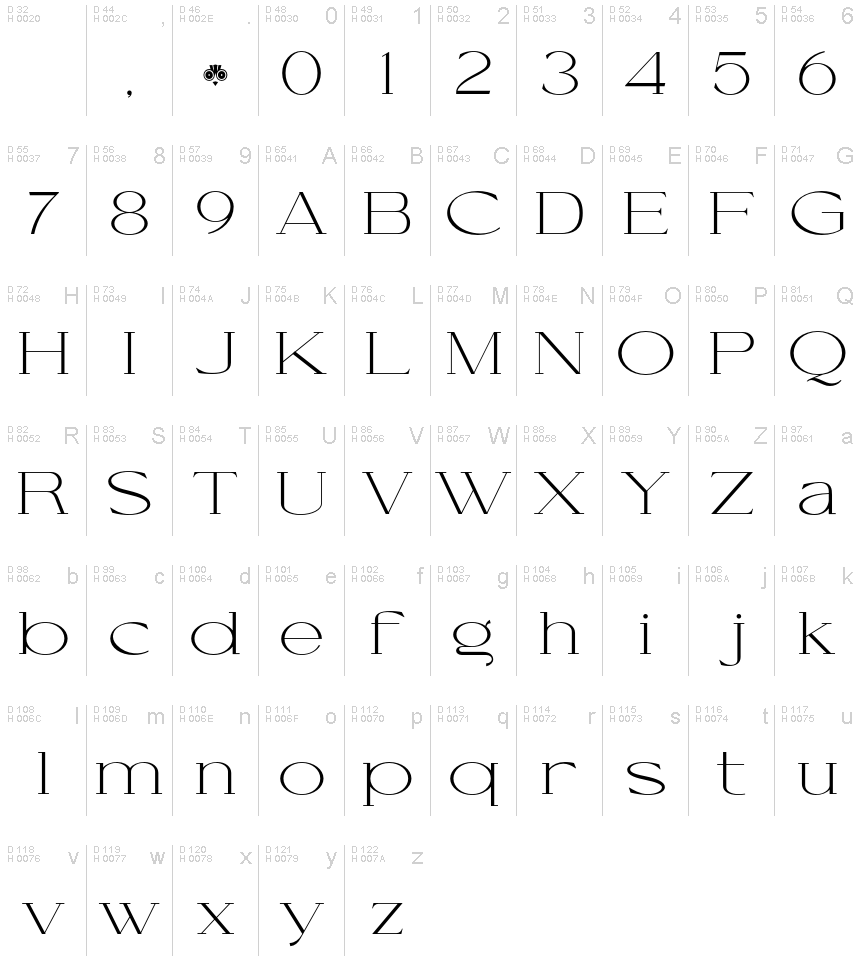
Cellofy Thin Expanded font from the Cellofy family, designed by Owlking Project, captivates with its elegant serif style. This light and expanded font beautifully balances sophistication and readability, making it a standout choice for designers seeking to add a refined touch to their projects. Its airy design offers a modern twist on traditional serif fonts, ideal for creating striking headlines or logos that require both flair and clarity.
Perfect for editorial design, wedding invitations, branding projects, or any creative endeavor that benefits from a touch of elegance. The Cellofy Thin Expanded is available as a free font download for personal use, providing an accessible option for those looking to enhance their typography toolkit with style and grace.